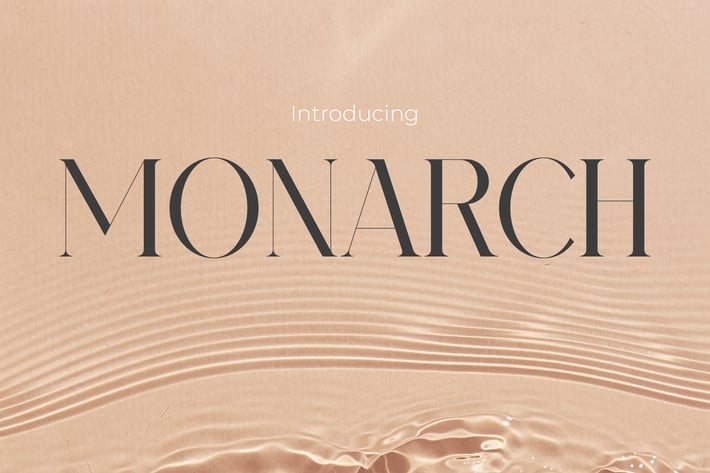
Monarch - Modern Font
Monarch - Elegant Display
MONARCH is a high-contrast, luxury-inspired display typeface with razor-sharp terminals, elegant stem proportions, and a refined vertical rhythm—perfect for fashion-forward branding and editorial layouts. Its slim serifs and tall letterforms deliver an aura of modern sophistication, balancing minimalism with visual richness. With a polished and mature vibe, MONARCH fits right into luxury lookbooks, lifestyle products, and upmarket visual identities.
MONARCH speaks the language of editorial design, high fashion, and boutique branding. Ideal for magazine titles, cosmetic labels, fashion campaigns, and elegant packaging, this typeface is crafted for brands looking to express refinement, clarity, and poise. Its commanding presence makes it perfect for header text, logotypes, and elegant callouts where subtlety and strength go hand-in-hand.
Key Features :
Sophisticated & Timeless
- Ideal for upscale designs with a modern-classic twist
- Balanced contrast and vertical precision add a graceful hierarchy
Perfect for Editorial & Luxury Brands
- Best for magazine layouts, perfume packaging, fashion labels, and jewelry branding
- Creates an immediate sense of refinement and trust
Designed for Visual Elegance
- Sharp serifs and slender counters offer both clarity and style
- Works beautifully in minimalist and muted color palettes
Elevate your brand with poise and clarity. MONARCH brings elegance and strength to any layout, empowering creatives to craft refined stories and timeless visuals. Don’t settle for generic—let your typography reign with MONARCH. Perfect for luxury-focused designers, beauty entrepreneurs, and editorial stylists looking to leave a lasting impression.